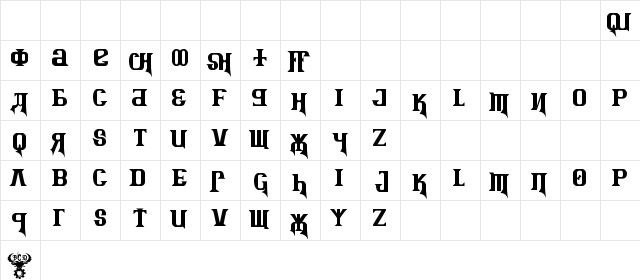
Kremlin Advisor Display Kaps Bo Bold Font Preview
Design Context for Kremlin Advisor Display Kaps Bo Typeface
Kremlin Advisor Display Kaps Bo brings ornamental detail and strong personality to headlines and identities, where visual impact matters more than quiet functionality. The heavy weight commands attention and anchors typographic hierarchies.
Font Pairing: Pair with a clean neutral sans-serif for body copy to let Kremlin Advisor Display Kaps Bo's character lead without overwhelming the composition.
Pro Tip: Treat Kremlin Advisor Display Kaps Bo as the centrepiece of your typographic hierarchy. One strong heading set in a decorative face can carry an entire layout.